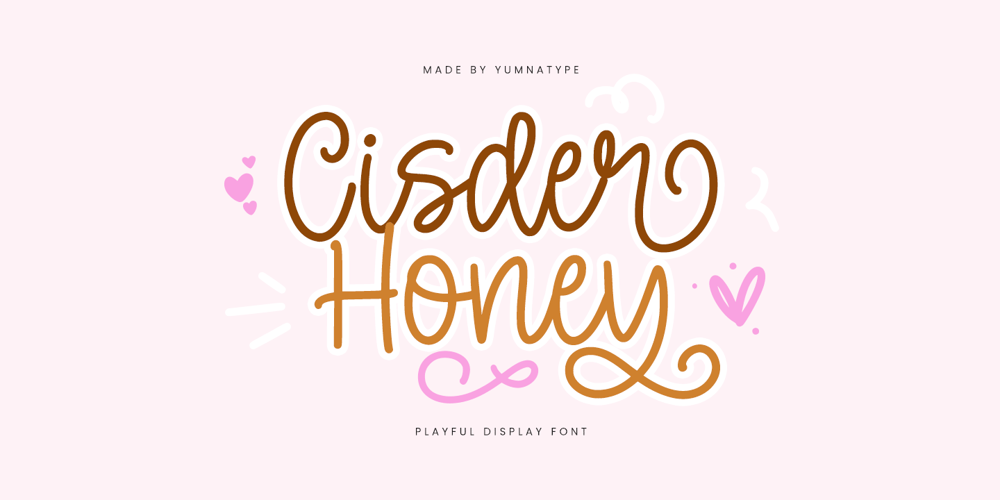
Cisder Honey Font Family was designed by Donis Miftahudin and published by Yumna Type. Cisder Honey contains 1 styles and family package options. Cisder Honey is a delightful display font that exudes sweetness and charm. With its playful style and light weight, Cisder Honey captures the fluidity and elegance of cursive handwriting. Each letter flows seamlessly into the next, creating a sense of rhythm and movement that is both captivating and inviting.The design of Cisder Honey resembles the natural strokes of a pen on paper, adding to its handwritten charm and authenticity. In addition, enjoy the features here.Features: Ligatures Stylistic Sets Multilingual Supports PUA Encoded Numerals and Punctuations Cisder Honey fits in headlines, logos, posters, flyers, branding materials, print media, editorial layouts, and many more designs. Find out more ways to use this font by taking a look at the font preview.Thanks for purchasing our fonts. Hopefully, you have a great time using our font. Feel free to contact us anytime for further information or when you have trouble with the font. Thanks a lot and happy designing.